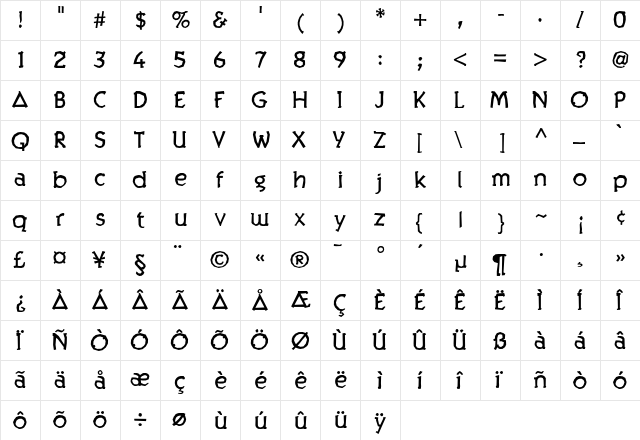
Twig RegularA
Design Context for Twig Typeface
Twig is a composed and adaptable typeface that performs quietly and consistently across a wide range of design contexts.